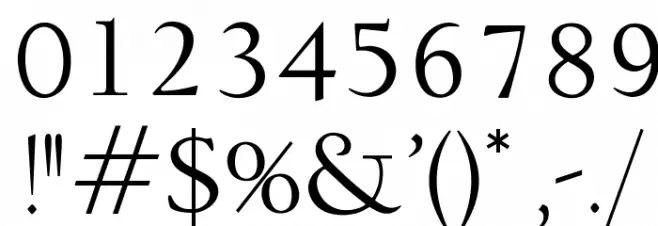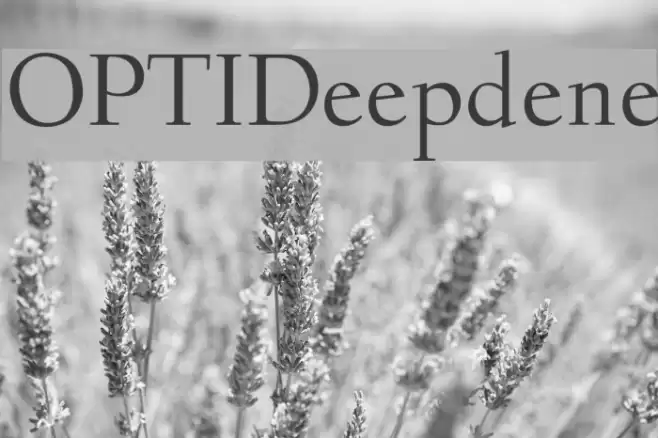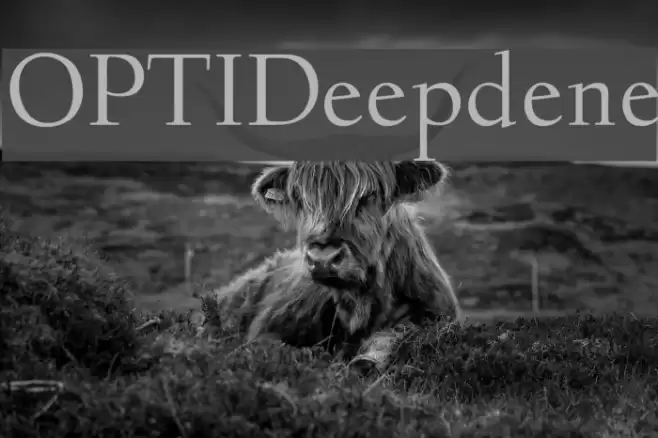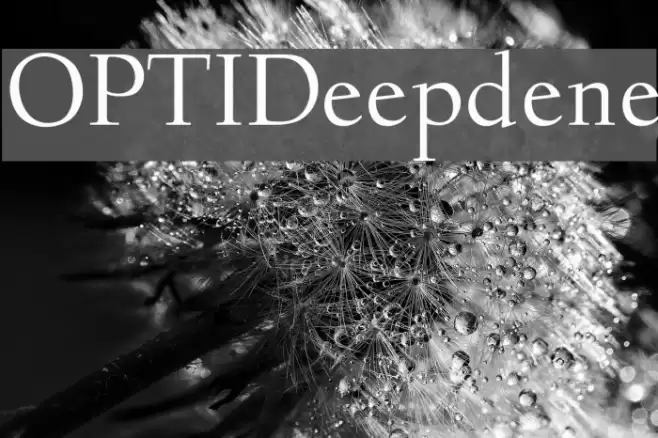
OPTIDeepdene Font
OPTIDeepdene Description
This font exhibits a classic serif style with elegant and refined strokes. The characters are well-proportioned, featuring a moderate contrast between thick and thin lines, which adds a touch of sophistication. The serifs are pronounced yet not overly exaggerated, contributing to a timeless aesthetic. The uppercase letters are stately and commanding, while the lowercase letters maintain a graceful flow. Numerals are clear and distinct, ensuring readability. Special characters are designed with the same attention to detail, making them harmonious with the rest of the typeface.
| Overall Style | Classic |
| Use Case | Headlines, Body text, Logos |
| Proposed Projects | Ideal for editorial design, book covers, formal invitations, and branding projects that require a touch of elegance. |